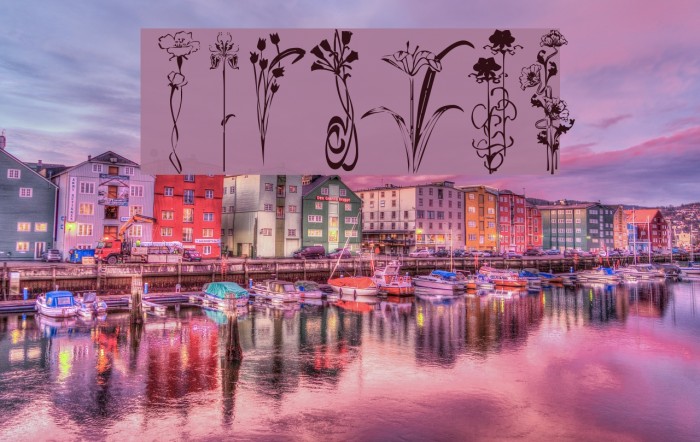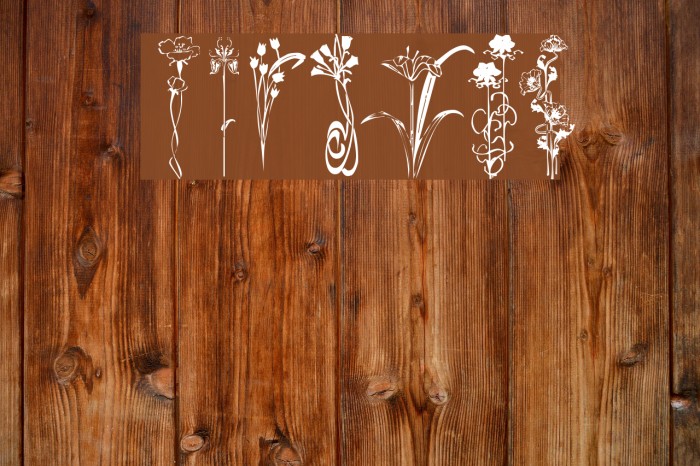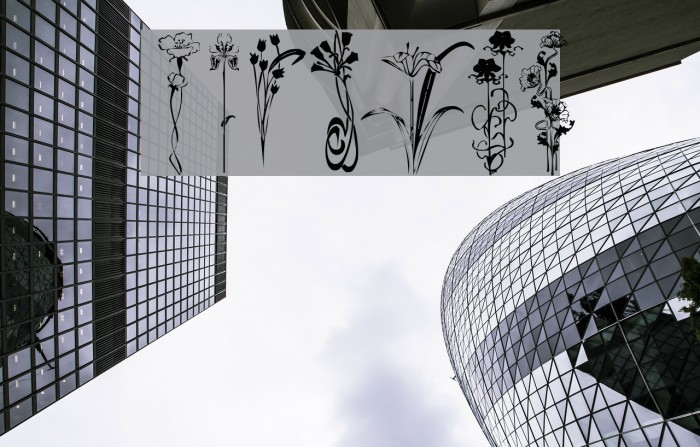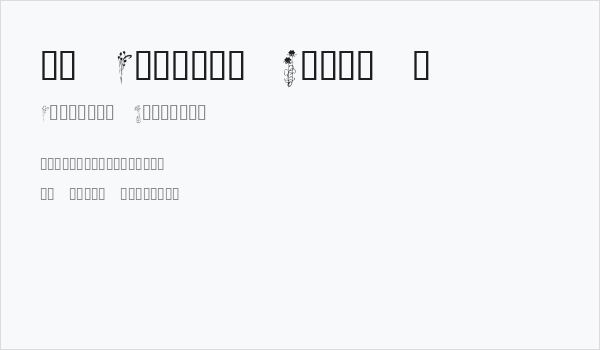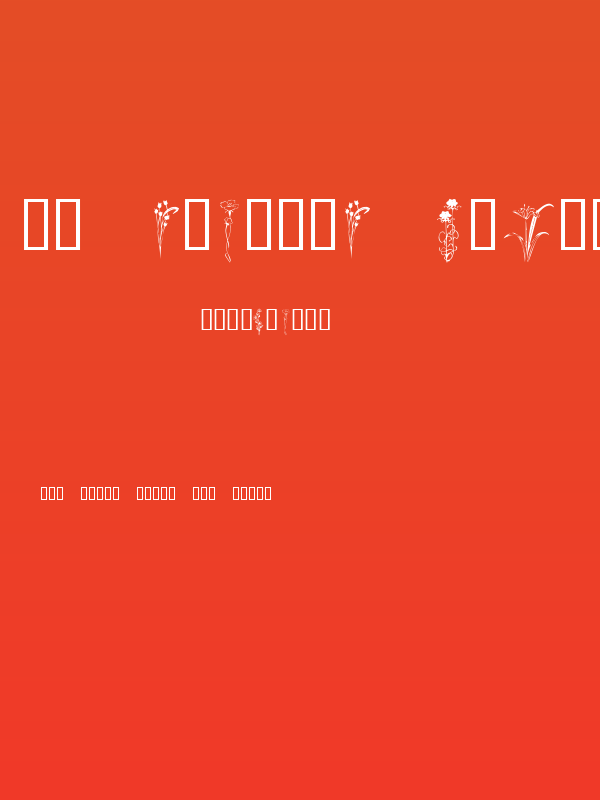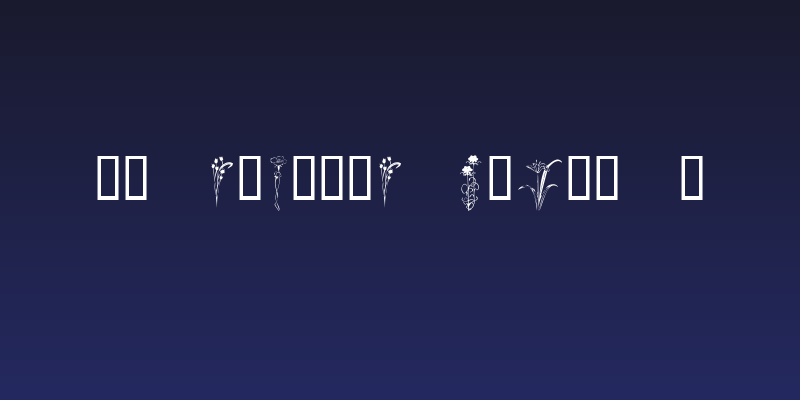
KR Classic Fleur 2 Font
KR Classic Fleur 2 Description
This decorative font features intricate floral designs that replace traditional alphanumeric characters. Each character is represented by a unique flower illustration, showcasing a variety of botanical styles. The designs are detailed and ornate, making them suitable for decorative purposes rather than standard text. The font emphasizes artistic expression through its elaborate floral motifs, offering a creative alternative to conventional typography.
| Use Case | Logos, Decorative text |
| Proposed Projects | Ideal for wedding invitations, greeting cards, art projects, and decorative posters where a floral theme is desired. |